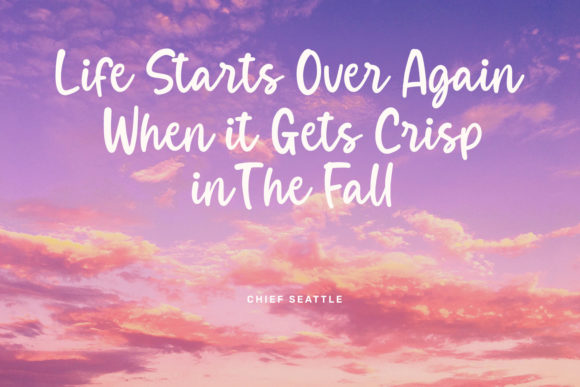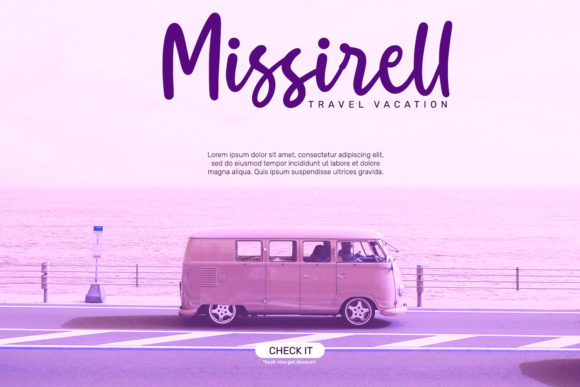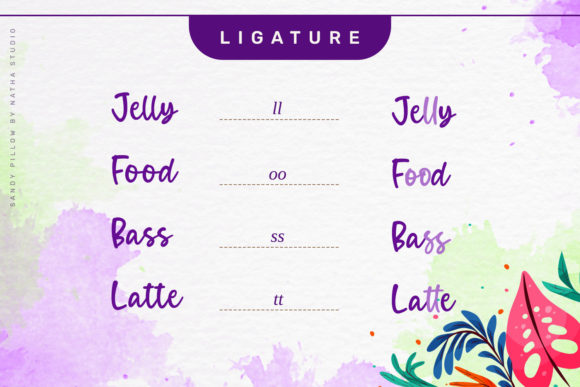
Introduction to Sandy Pillow Font
As a designer, you’ve probably had those moments when you’re working on a project and you just can’t seem to find the right font to bring it all together. The words are stuck in your head, but the font just isn’t speaking to you. That’s where the Sandy Pillow Font comes in – a high-quality, adaptable handwritten font that’s sure to elevate your design game.
Whether you’re working on a creative project, designing a logo, or crafting a beautiful quote, the Sandy Pillow Font is the perfect design resource to have in your toolkit. With its unique and beautiful touch, every letter comes alive, making it the perfect choice for designers who want to create eye-catching designs that stand out from the crowd.
Key Features of Sandy Pillow Font
- Unique, hand-drawn style with a transparent background
- Includes a range of characters, including uppercase and lowercase letters, numbers, and symbols
- Great for adding a personal touch to your designs and creative projects
Honest Review: Sandy Pillow Font
I recently had the chance to work with the Sandy Pillow Font, and I must say, it’s a delightful addition to any design project. This high-quality font is a fantastic design resource that can elevate your creative project to the next level.
- ✨ The font’s unique, playful style makes it perfect for projects that need a touch of whimsy.
- ✨ The transparent background option allows for seamless integration with various design elements.
While the font is overall impressive, there are a few limitations to consider:
- ⚠️ The font may not be suitable for formal or professional projects due to its playful style.
- ⚠️ The font family is relatively small, which may limit its versatility in certain design scenarios.
Overall, I’m thoroughly impressed with the Sandy Pillow Font. Its unique style and free download option make it an excellent addition to any design library. While it may have some limitations, I believe it’s a valuable resource for designers looking to add a touch of creativity to their projects.
Sandy Pillow Font
The Sandy Pillow Font is a high-quality design resource ideal for creative projects. It’s available for free download with a transparent background, making it easy to integrate into various design tools.
Tips for Getting the Most Out of Sandy Pillow Font
Here are some tips for getting the most out of the Sandy Pillow Font:
- Experiment with different font sizes and styles.
- Combine the Sandy Pillow Font with other design elements for a unique look.
- Use the font in a variety of creative projects, such as graphics, logos, and more.
Common Use Cases for Sandy Pillow Font
The Sandy Pillow Font is ideal for a variety of creative projects, including:
- Graphics and illustrations.
- Logos and branding materials.